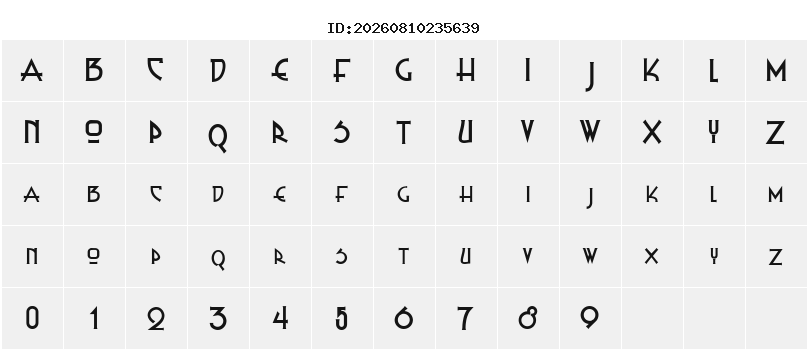
• Font Name: Russel Write TT
• Full Font Name: Russel Write TT
Russel Write TT.ttf is a modern, elegant sans-serif font designed for ultimate readability and visual harmony. Perfect for branding, headlines, web design, and print materials.